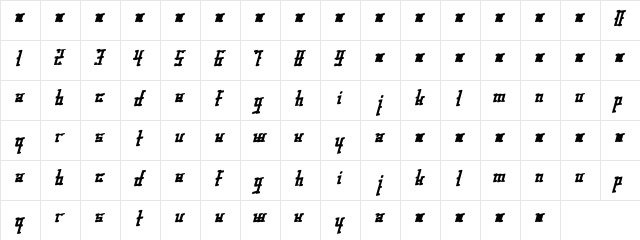
gleesteak Regular
Design Context for gleesteak Typeface
gleesteak is a composed and adaptable typeface that performs quietly and consistently across a wide range of design contexts.